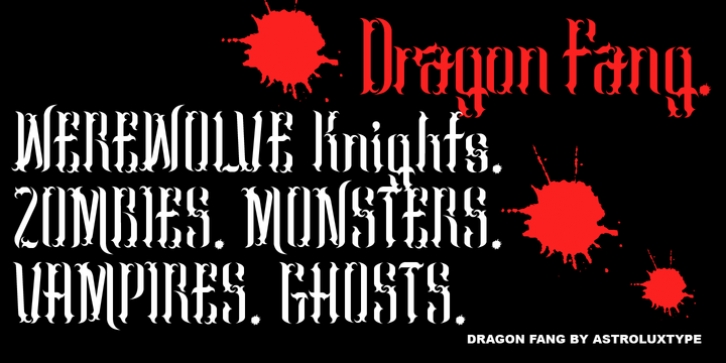
Dragon Fang was published by astroluxtype. Dragon Fang contains 1 style.
Dragon Fang is a headline display font set. The style suggests Medieval font forms but in a contemporary sense. The font contains uppercase and lowercase letterforms which include a few alternate characters. Look for the swash "B" and "D" to give your design project a special look. Influenced by everything from Rick Griffin and Linotext to tribal tattoo art this font will bring a contemporary edge to your design project. Fantasy book cover art, album covers, even that horror movie will find many uses for astroluxtype's Dragon Fang.